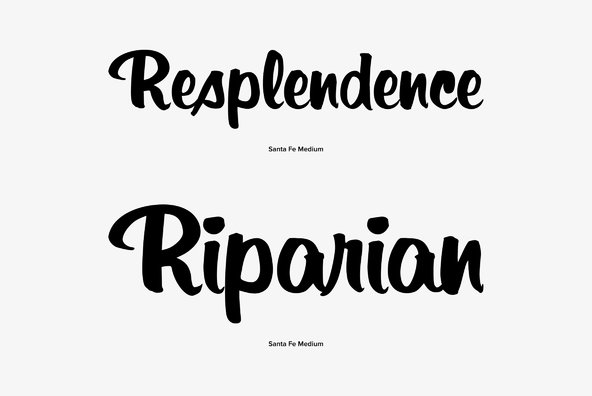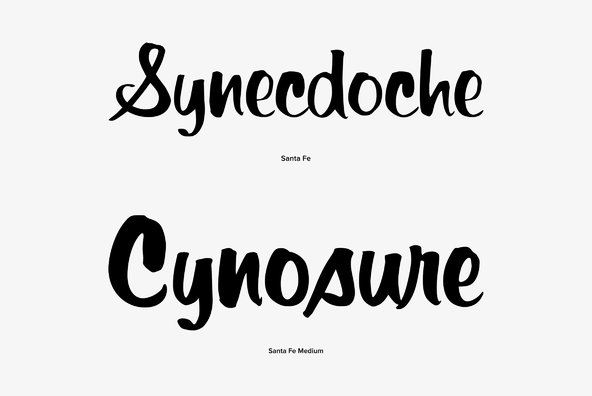
Santa Fe is a profonts script typeface family supplied in the new OpenType Pro format. Santa Fe contains six styles: light, medium, bold and the corresponding italics. The character set covers about 500 glyphs for all Latin European languages, including T...
Santa Fe is a profonts script typeface family supplied in the new OpenType Pro format. Santa Fe contains six styles: light, medium, bold and the corresponding italics. The character set covers about 500 glyphs for all Latin European languages, including Turkish. There are a large number of handmade ligatures and alternates to make it a perfect OpenType Pro connecting script. Santa Fe is a lively, clear handwriting font which can be used in many ways.